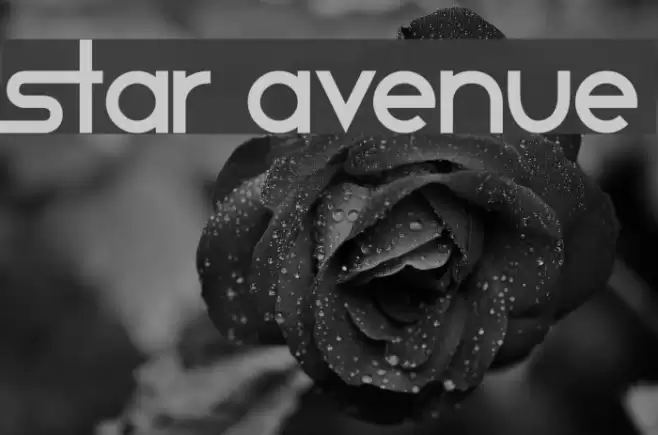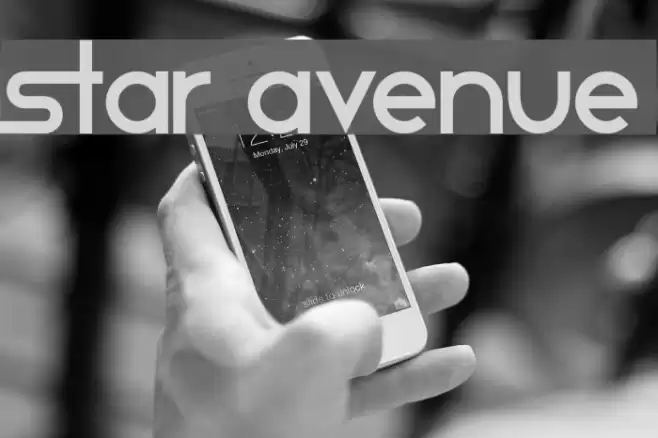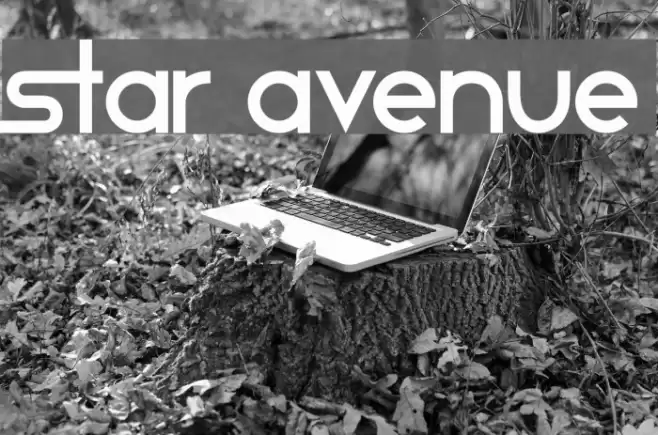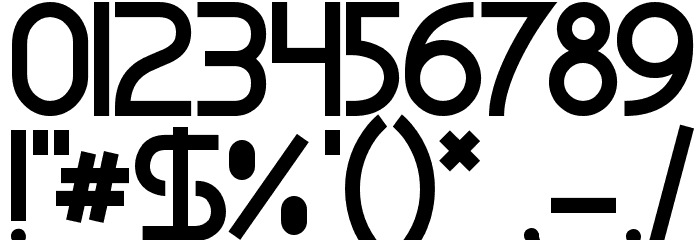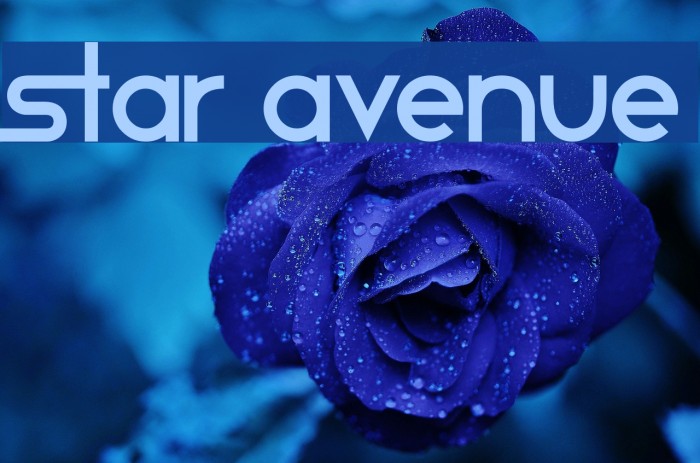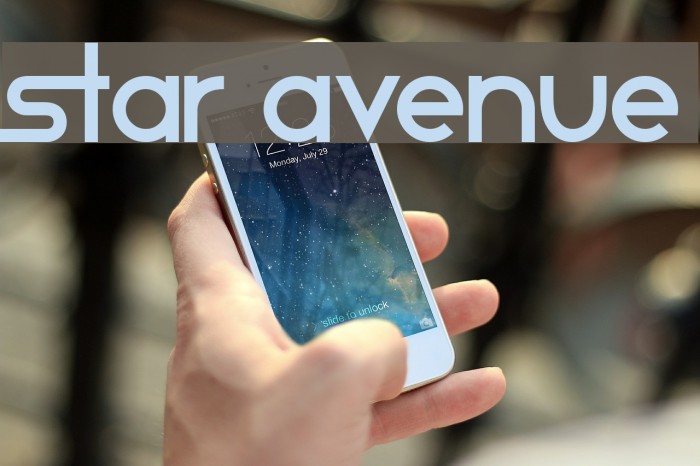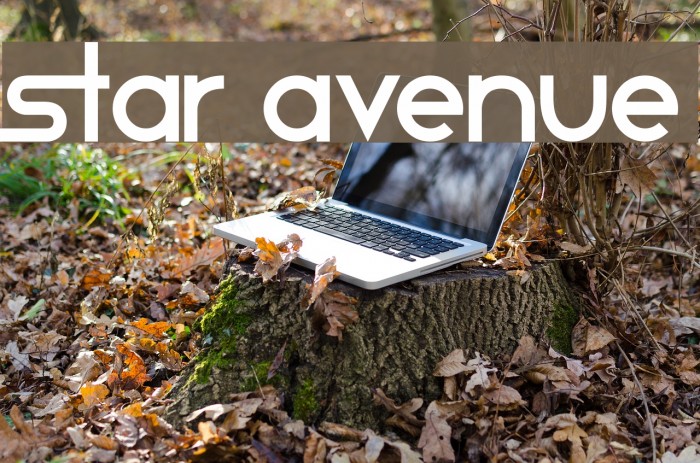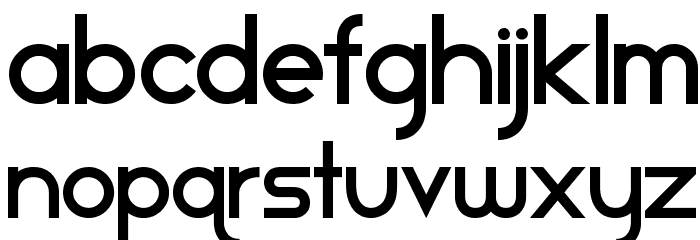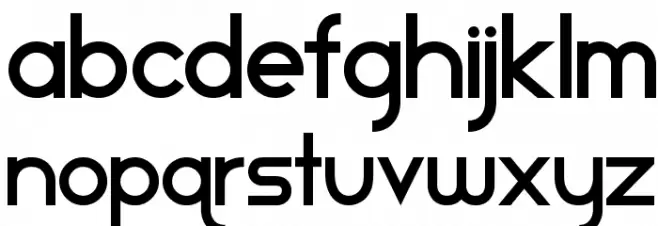
Star Avenue
This font features a modern, geometric design with clean lines and a sleek appearance. The characters are uniformly structured, showcasing a balance between rounded and angular elements. The uppercase and lowercase letters maintain a consistent style, with a slight emphasis on curves, particularly noticeable in letters like 'a', 'b', and 'g'. The numerals are bold and clear, ensuring legibility. Special characters are designed to complement the overall aesthetic, maintaining the font's cohesive look. The uniformity in stroke width across all characters provides a harmonious and professional appearance.
A modern, geometric font with clean lines and consistent structure.
- Proposed Projects: Ideal for branding, advertising, digital media, and modern web design projects.